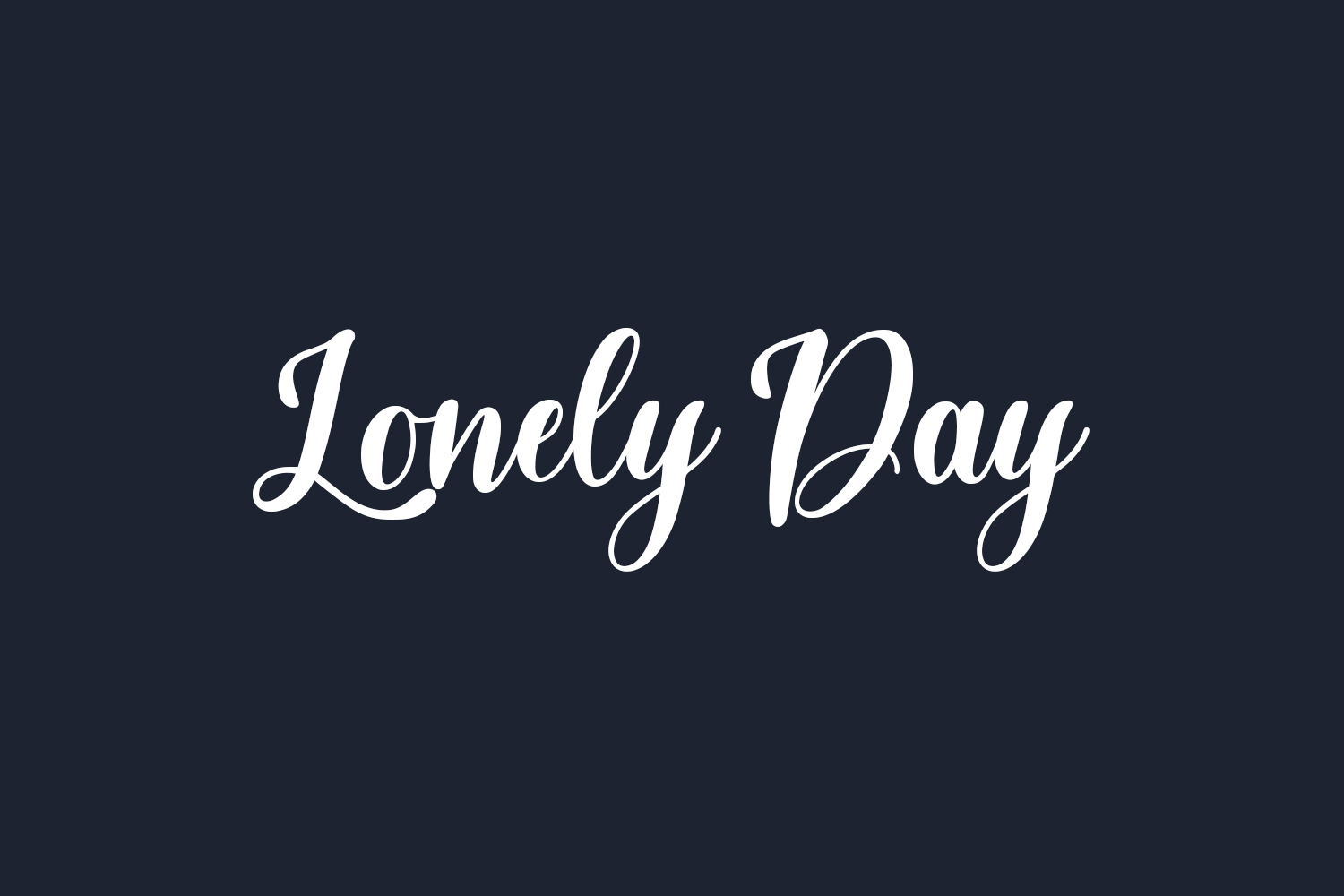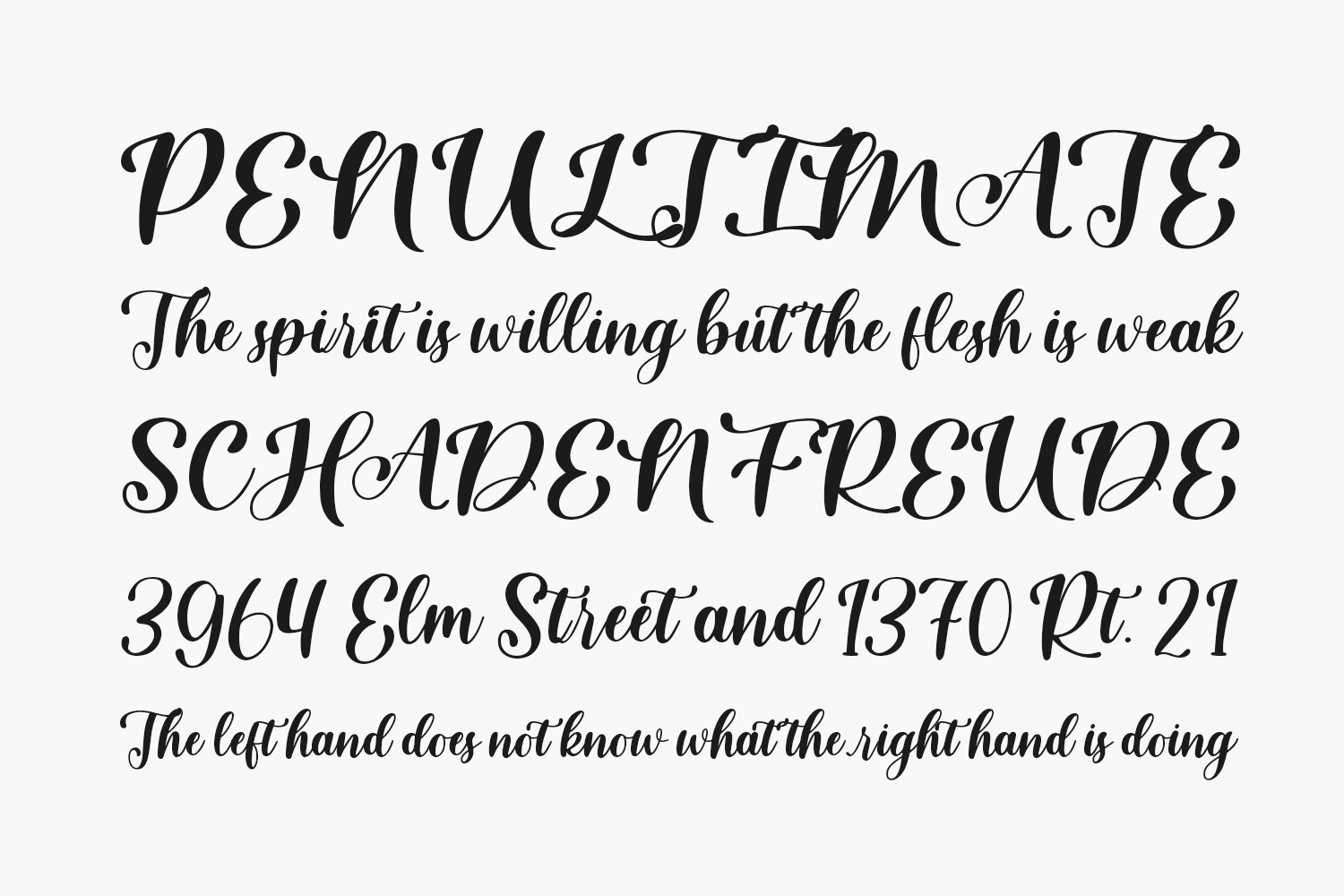
Lonely Day Free Font is a fashionable and cursive handwritten font. This font is PUA encoded which means you can access all of the glyphs and swashes with ease. Lonely Day Free Font was designed by Jimtype Studio and is free for personal use only. Please purchase the full version for commercial use.